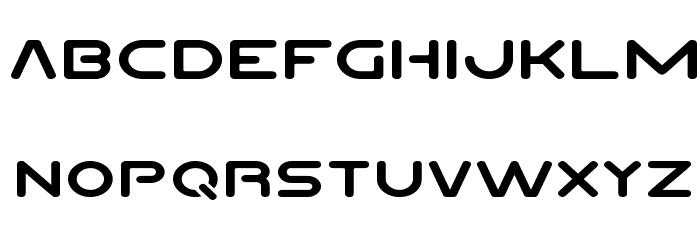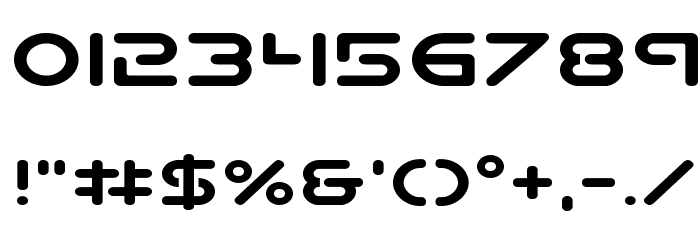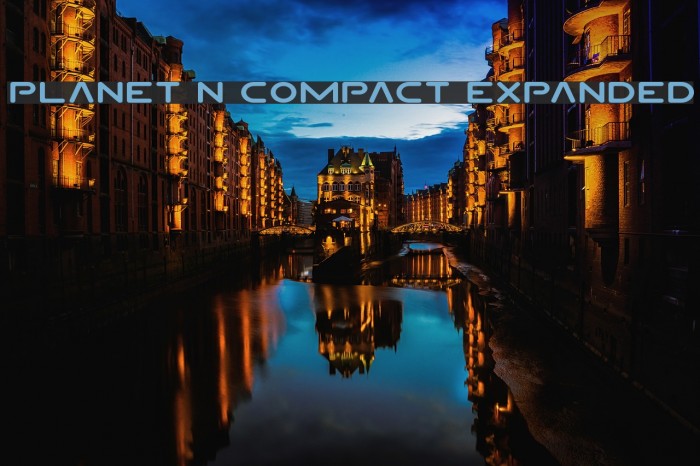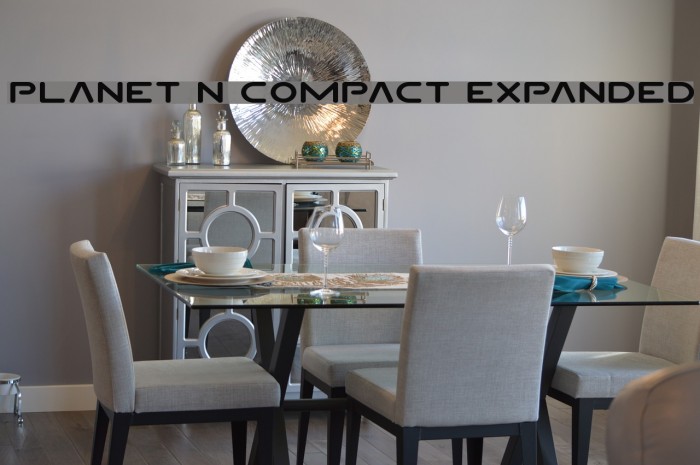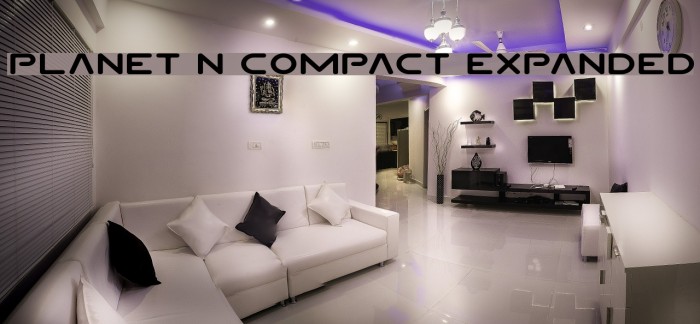
Planet N Compact Expanded Font
This font features a futuristic and geometric design with rounded edges and a sleek, modern appearance. The characters are uniform in height and width, creating a cohesive and balanced look. The uppercase letters have a distinct, bold presence, while the lowercase letters maintain the same stylistic elements, ensuring consistency across different text cases. The numerals are designed to match the overall aesthetic, with a similar rounded and compact form. Special characters are included, each reflecting the same modern and clean style. This font is ideal for projects that require a contemporary and tech-savvy look.
A futuristic, geometric font with rounded edges and a sleek, modern style.
- Proposed Projects: Ideal for technology branding, sci-fi themed designs, modern advertising, and digital interfaces.
- Use Case: Headlines, Logos, Digital Interfaces